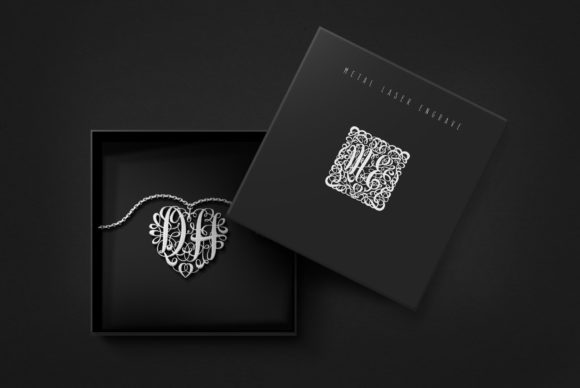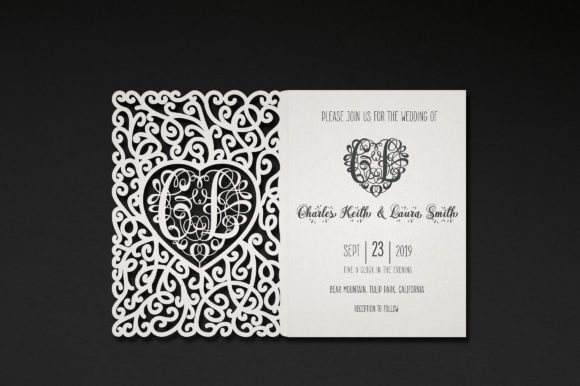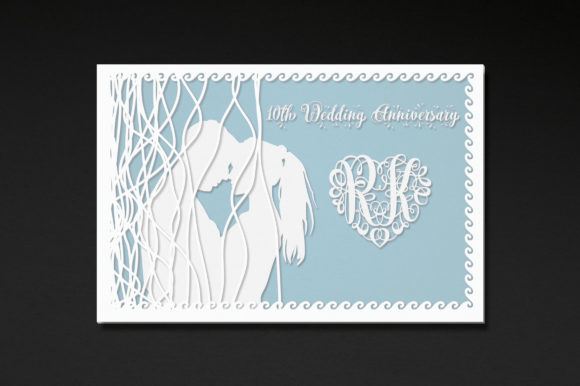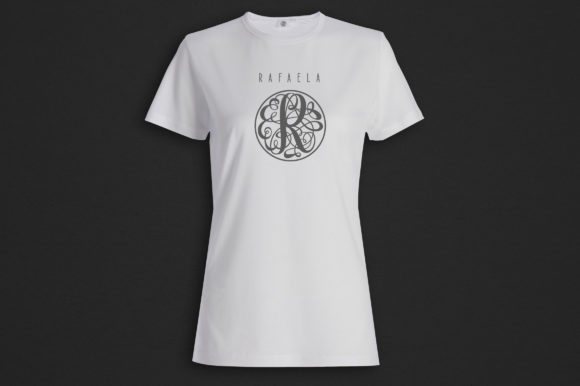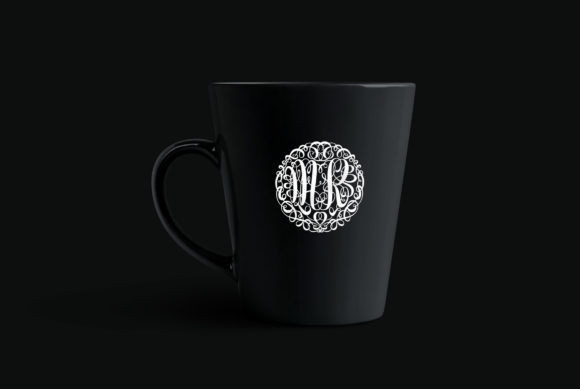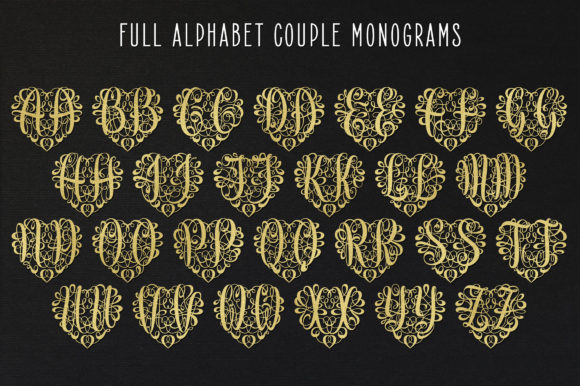
Introduction to Monogram Script Font
Monogram is an amazing decorative font with beautiful details.
Fall in love with its authentic charm .
Key Features of Monogram Script Font